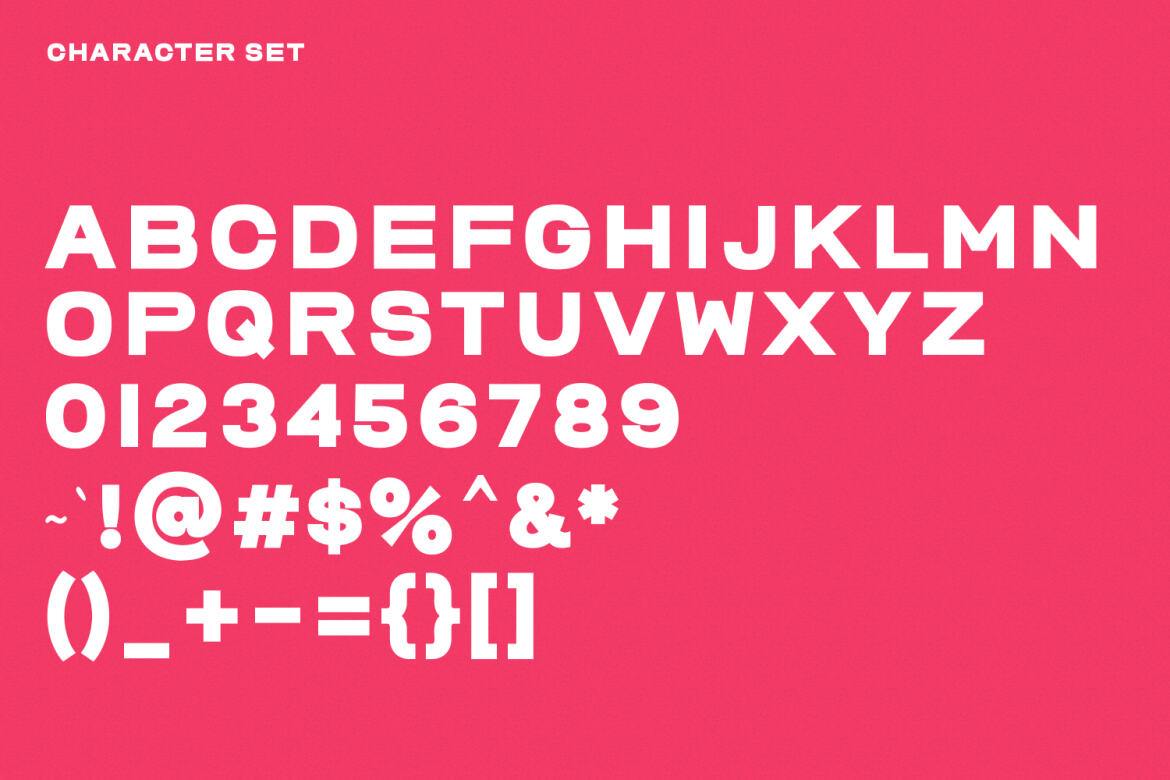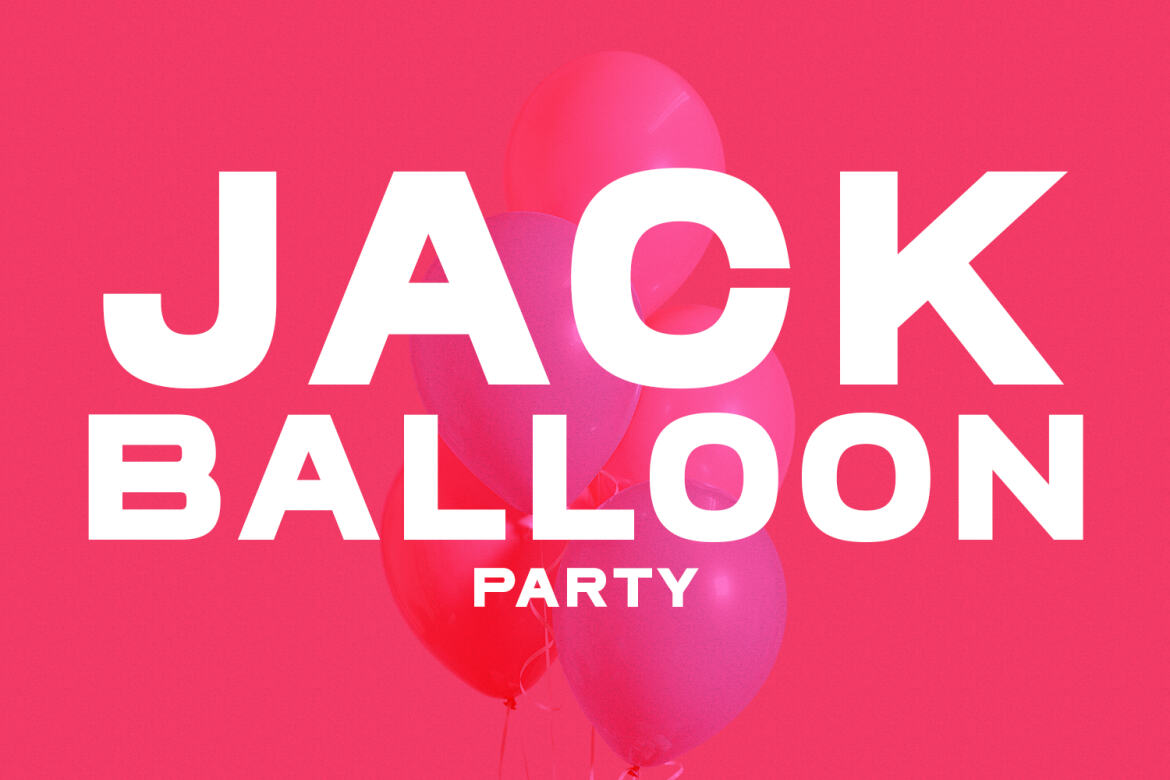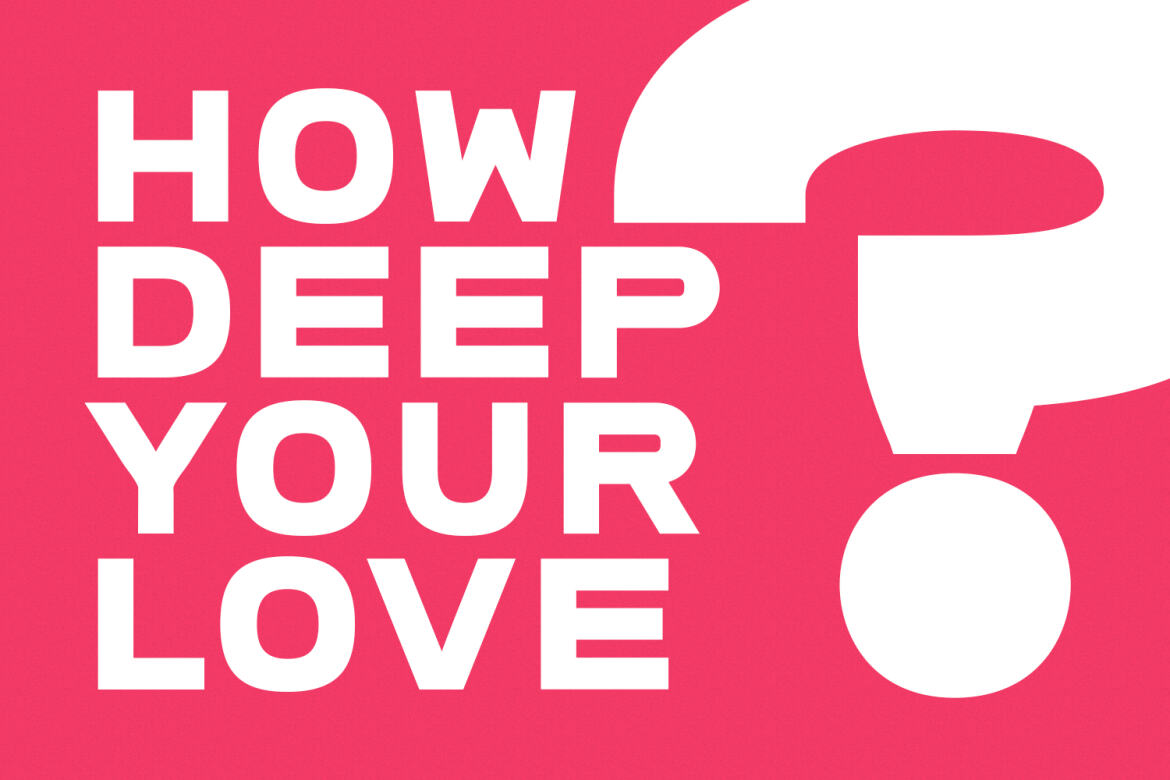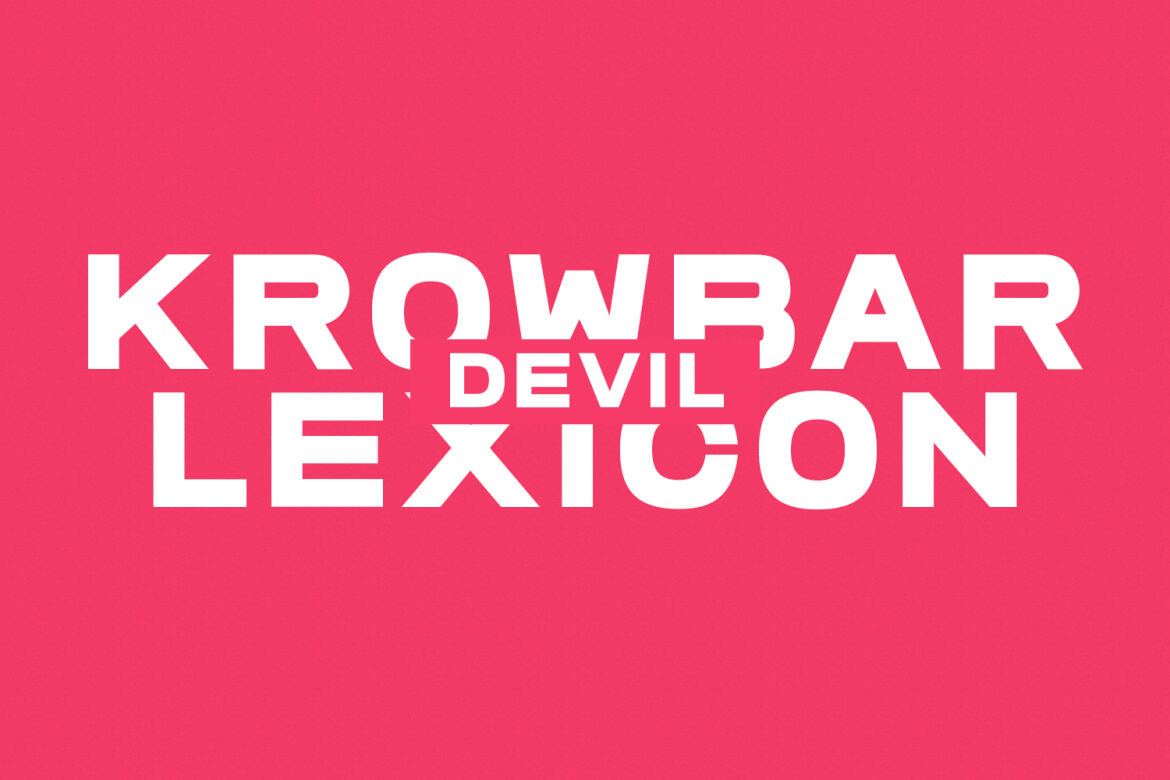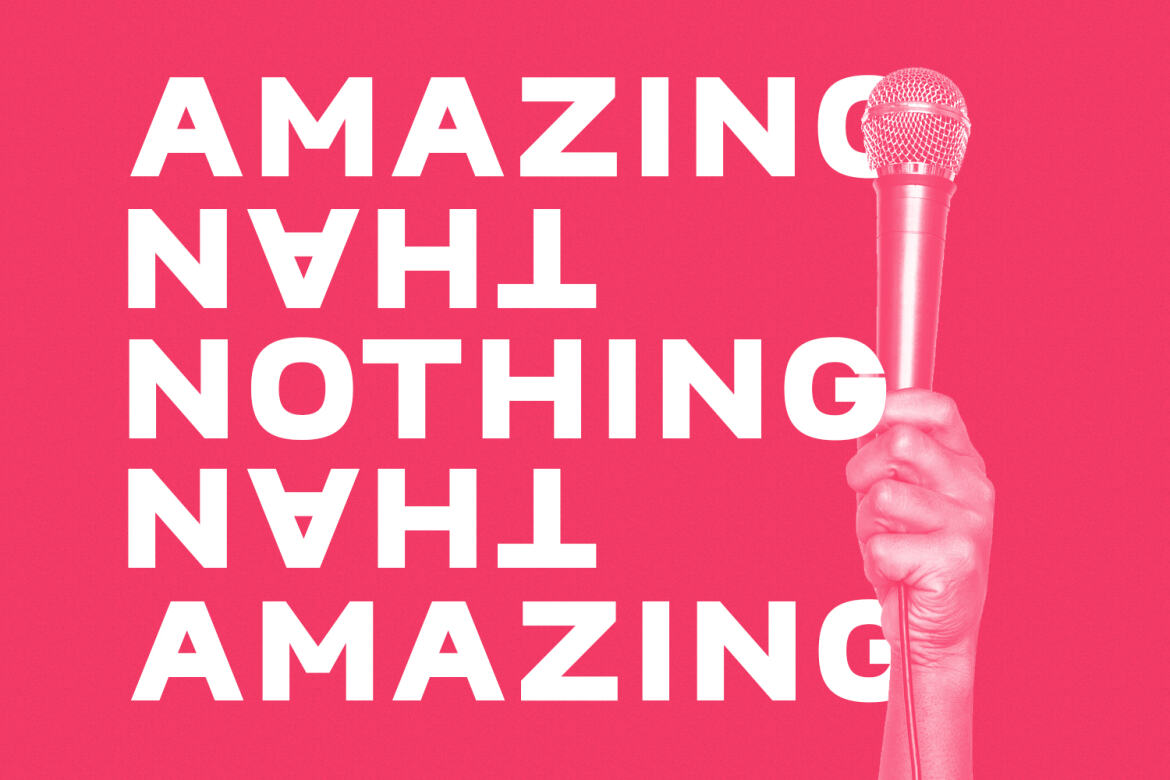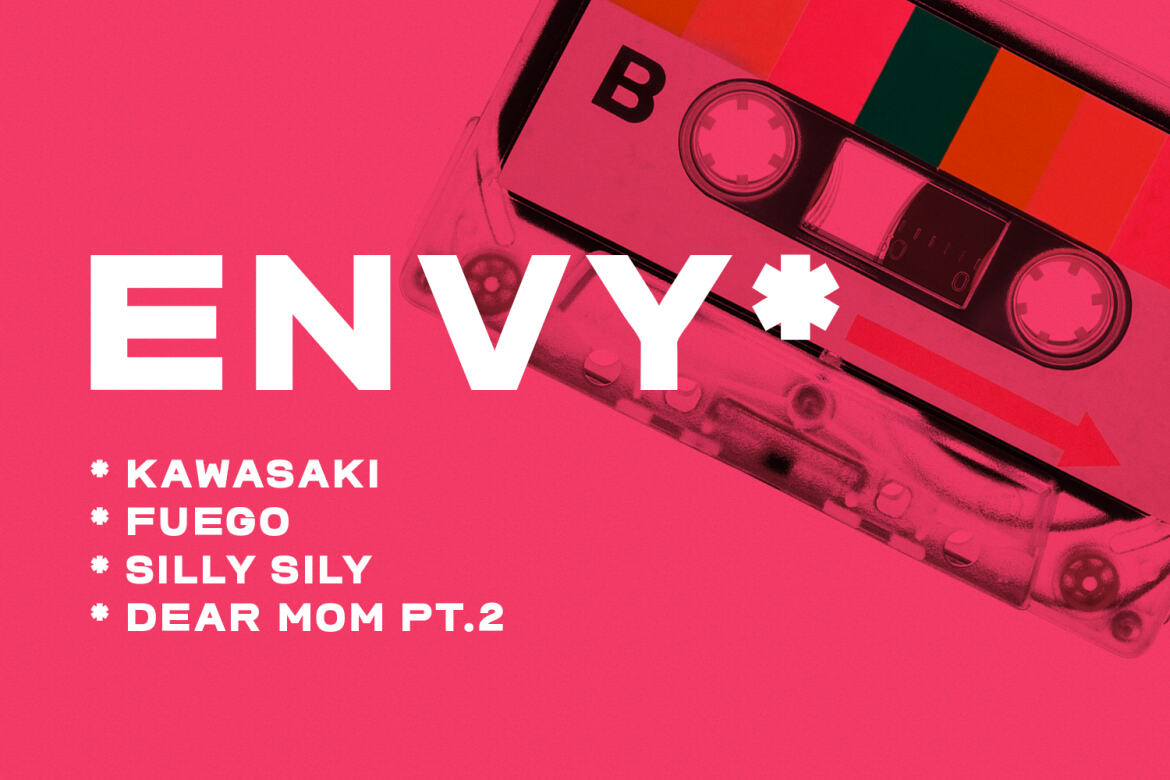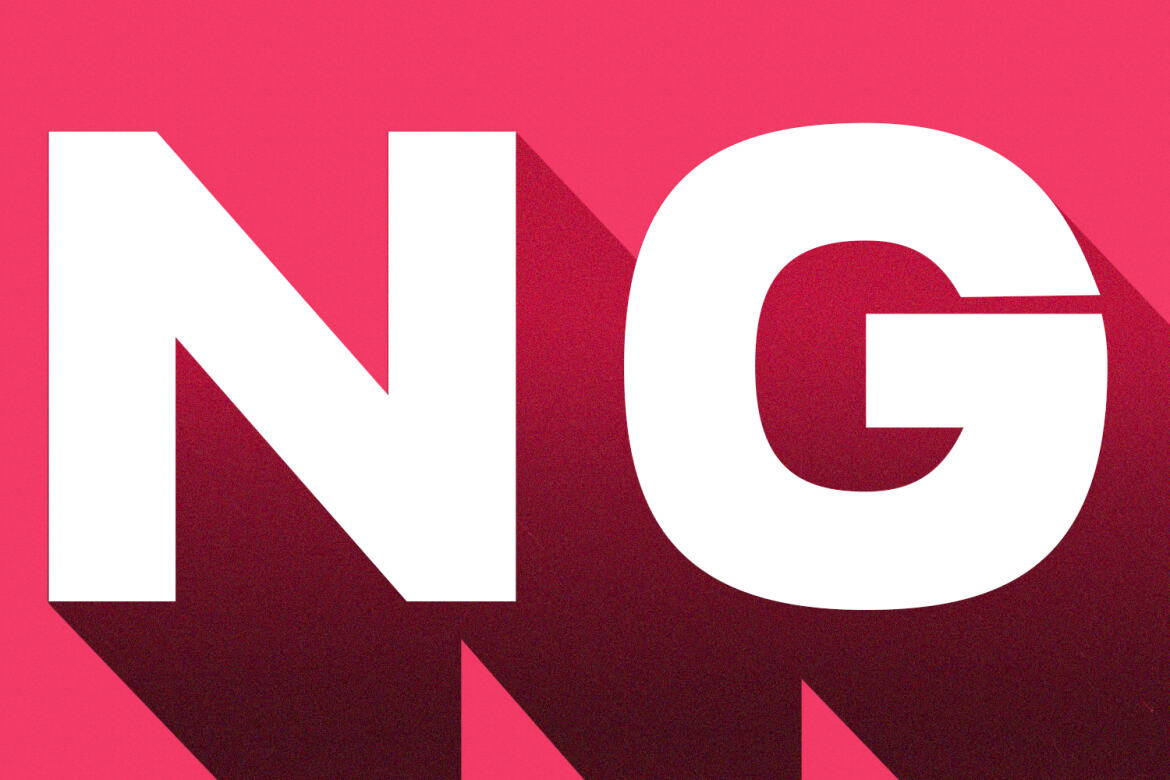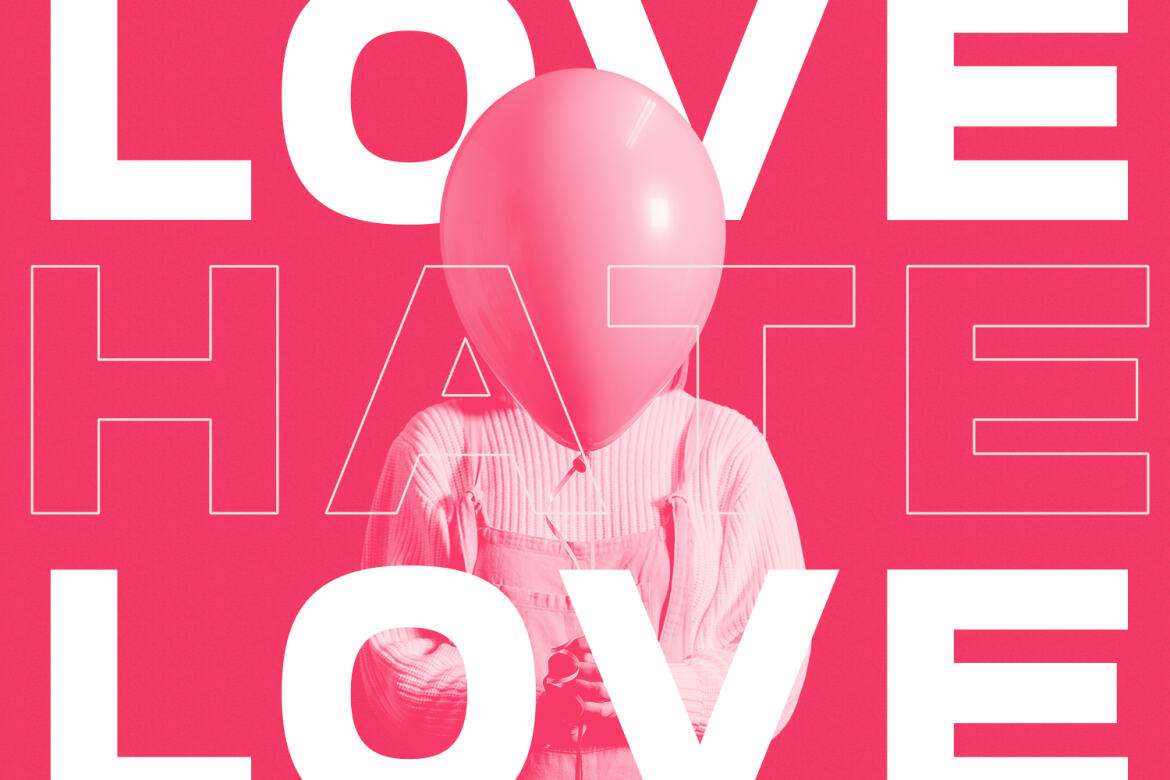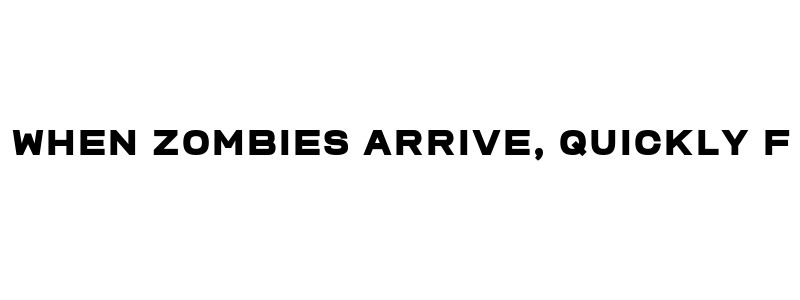
Komrad Sans FREE Display Font
Komrad
Komrad is an all caps modern sans serif font. With semi bold stroke, fun character with a bit of ligatures and alternates. To give you an extra creative work. Komrad font support multilingual more than 100+ language. This font is good for logo design, Social media, Movie Titles, Books Titles, a short text even a long text letter and good for your secondary text font with sans or serif. Make a stunning work with Komrad font.